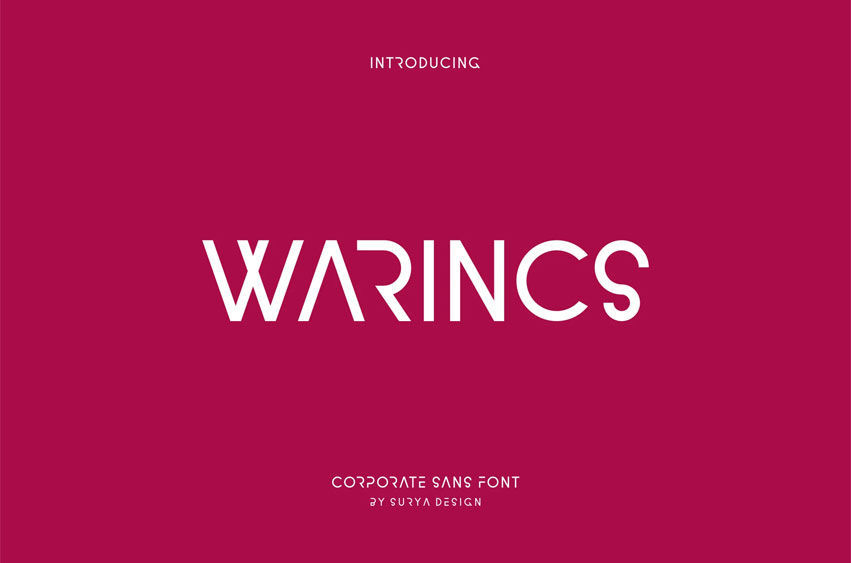
Warincs Font
Warincs Font Modern Font is a bold and authentic display font. The font is suitable for any branding project, like logos, esport, and many more.